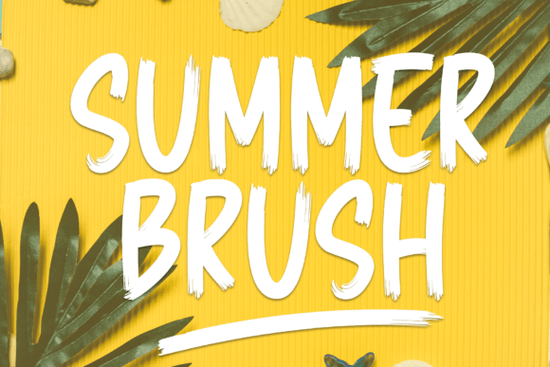
If you're looking for a handwritten script font that adds elegance to wedding invitations or branding, Summer Brush Font is a stylish choice. It combines brush strokes with a refined, flowing script, giving your designs a personal touch without losing readability. Whether you're a print-on-demand seller, a small business owner, or a creative hobbyist, this font can help your projects stand out.
What makes Summer Brush Font different from other script fonts?
Unlike many digital scripts that feel stiff or overly formal, Summer Brush keeps a natural, hand-painted feel. The letters have slight variations in weight and angle, which mimics real brush lettering. That makes it ideal for projects where you want warmth and personality like thank you cards, greeting cards, logos, or business cards. It's also smooth enough to use for longer quotes or body text in small sizes.
Where can you use this font in real projects?
Because it's a versatile script, you can apply it across many design types:
- Wedding stationery – save the dates, invitations, place cards, menus
- Social media graphics – Instagram quotes, Pinterest pins, story highlights
- Product packaging – labels for candles, soaps, or homemade goods
- Branding – logos, shop signage, or business card text
- Print-on-demand – t-shirt designs, mugs, tote bags
How does Summer Brush Font perform for logos and branding?
Logos need to be legible and memorable. Summer Brush works well because its letterforms are clear even when scaled down. The slight irregularity in stroke width adds character without becoming messy. For a logo, pair it with a clean sans-serif to contrast the hand-drawn feel. If you're building a brand kit, Summer Brush Font can be the accent that gives your brand a friendly, artisanal vibe.
Is Summer Brush Font easy to read in long text?
Yes unlike some highly decorative scripts that become hard to read after a few words, Summer Brush keeps legibility in mind. The ascenders and descenders are balanced, and the letters don't overlap too much. You can use it for a full paragraph of a quote or a short story without losing your reader. It works especially well when you keep the line spacing generous (around 1.5 to 2 line height).
What to look for when choosing a script font for your project
Before picking any script font, think about these factors:
- Personality – Is it playful, elegant, rustic, or modern? Summer Brush sits between elegant and approachable.
- Legibility – Can you read it at small sizes? This font holds up well at 12 pt–14 pt for body text.
- Context – Where will it appear? Formal invitations vs. casual social posts affect your choice.
- Pairing – Scripts often need a neutral sans-serif or serif companion. Try Montserrat, Lato, or Playfair Display.
Practical checklist before you download Summer Brush Font
Use this quick list to decide if this font fits your next project:
- ☐ You need a handwritten script that looks natural, not robotic.
- ☐ Your project is wedding, thank you cards, logos, or quotes.
- ☐ You want a font that works both large (headers) and small (captions).
- ☐ You're willing to pair it with a simple sans-serif for contrast.